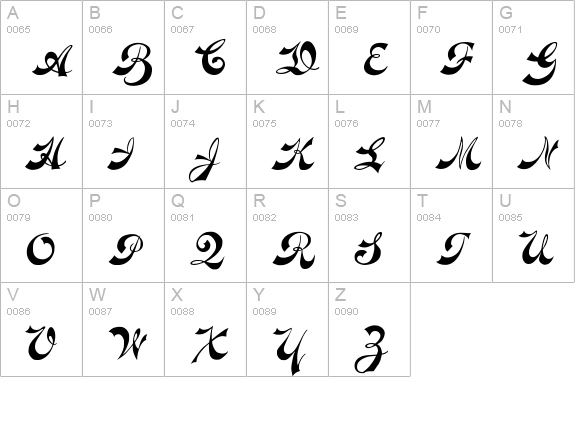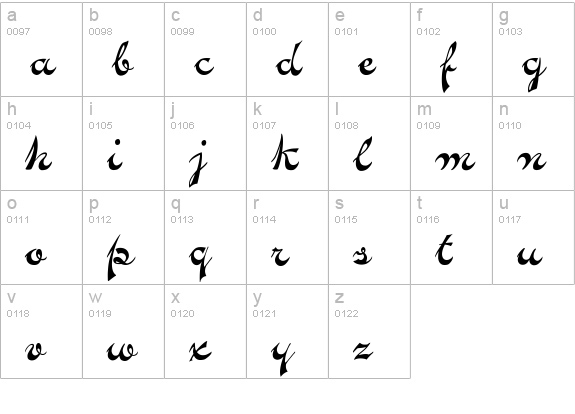
Novelty Script plain font is a whimsical and playful typeface that brings a touch of charm to any project. With its unique and eye-catching design, this font is perfect for adding a fun and lighthearted feel to your creative works. Whether you're designing invitations, greeting cards, posters, or any other project that calls for a touch of novelty, Novelty Script plain font is sure to make a statement. The best part? This delightful font is available for free download at FontsMarket.com. You can easily access and use Novelty Script plain font in your projects without any cost, making it a fantastic resource for designers, artists, and creatives looking to add a touch of whimsy to their work. Don't miss out on this opportunity to enhance your designs with the charm and character of Novelty Script plain font - download it for free today!